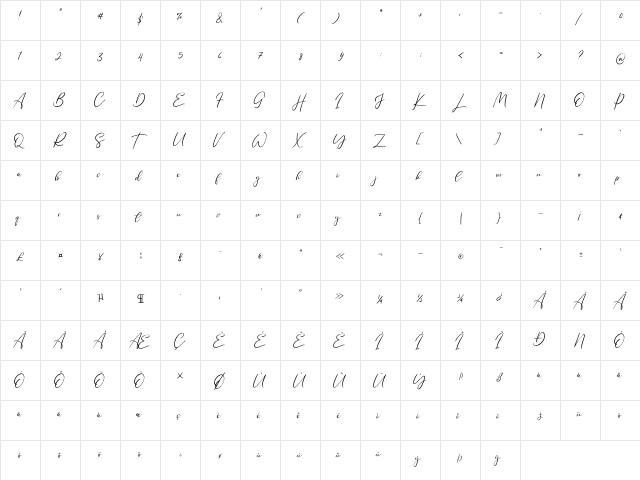
Single Signature Thin Regular Font Preview
Single Signature Thin Regular
Single Signature Thin Regular Font Details
Design Context for Single Signature Thin Typeface
Single Signature Thin is a composed and adaptable typeface that performs quietly and consistently across a wide range of design contexts. Its slender proportions lend an understated elegance to any composition.